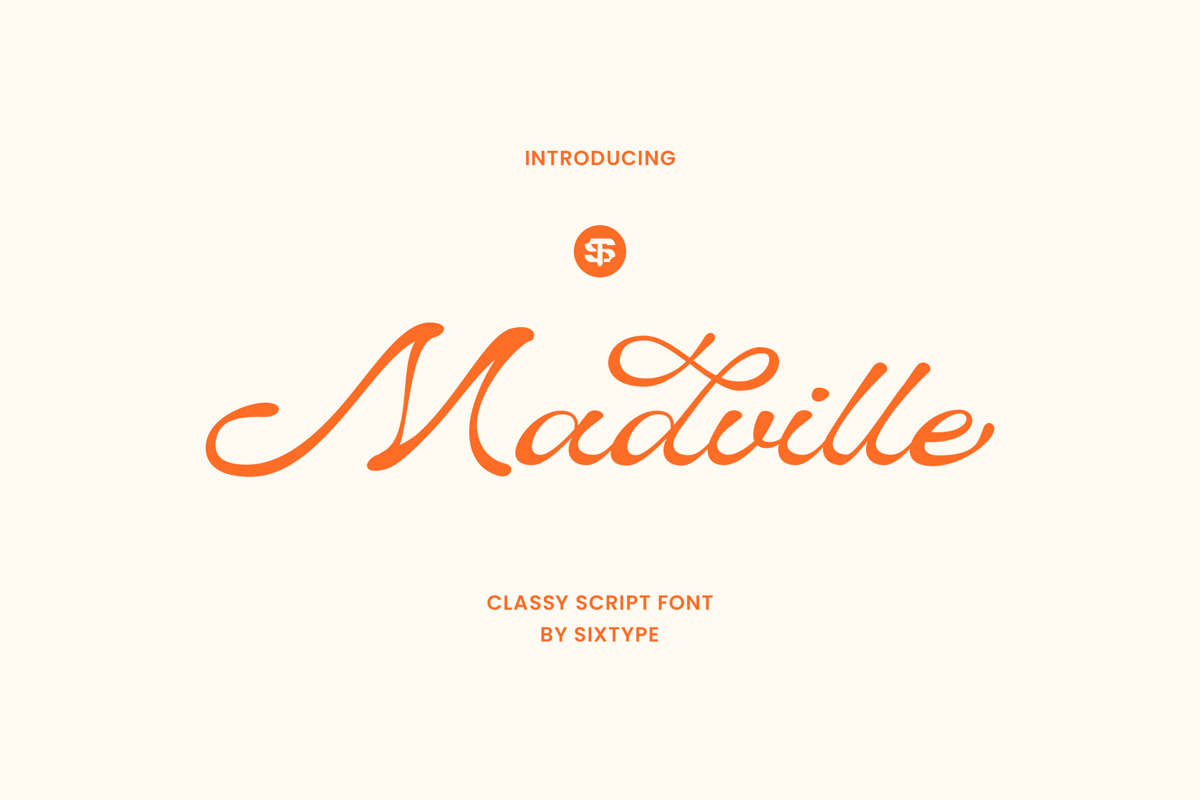
Madville - Classy Script Font
Transform your designs with Madville's elegant script styling and authentic handwritten charm. This distinctive script font brings personality and sophistication to any project with its playful characters and natural imperfections that create an organic, hand-lettered aesthetic. Perfect for crafting memorable logos, inspirational quotes, wedding invitations, and premium branding materials. File Includes: Uppercase, Lowercase, Number, Punctuation and Multilingual support .Otf .Ttf .Woff .Woff2 fo...